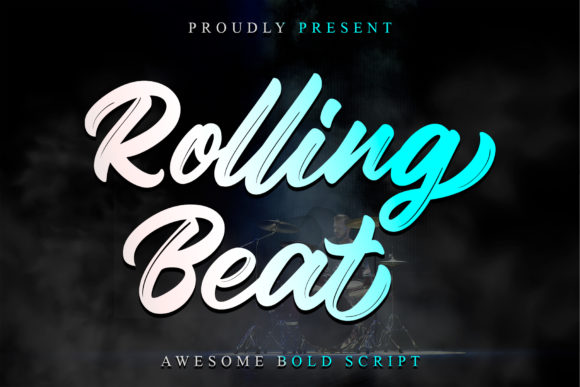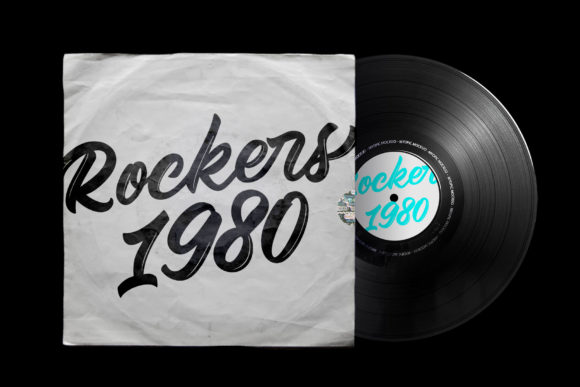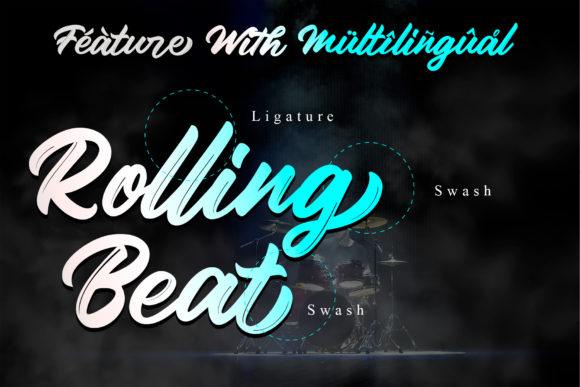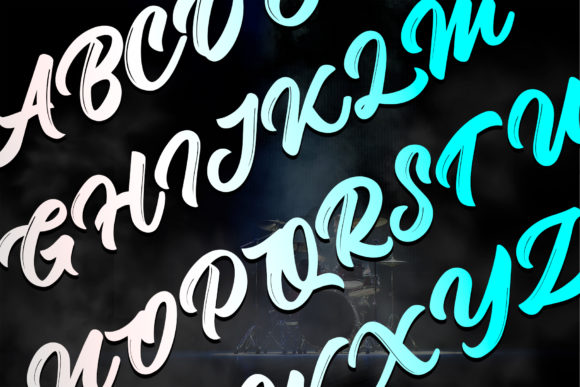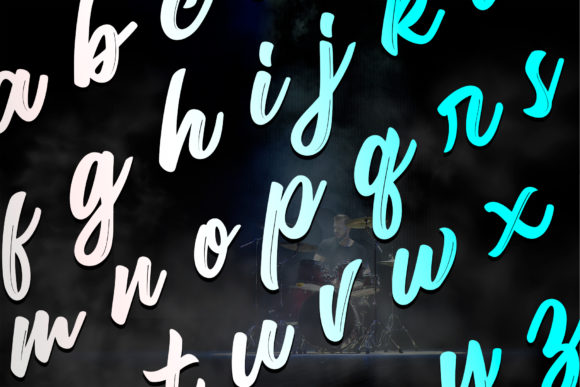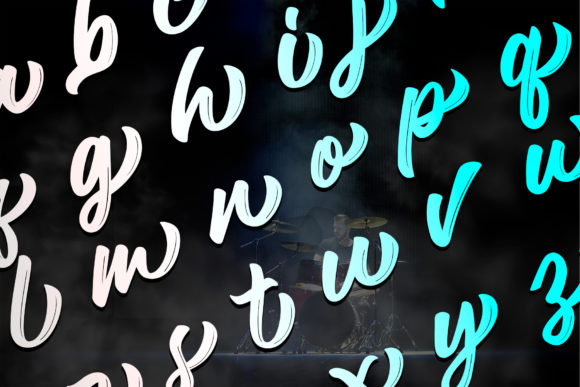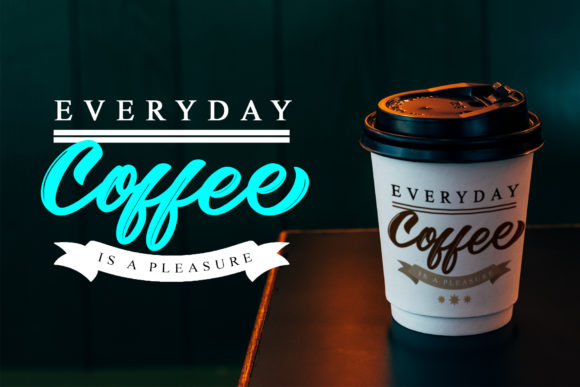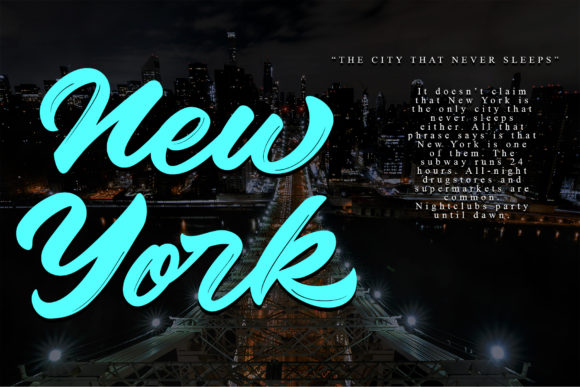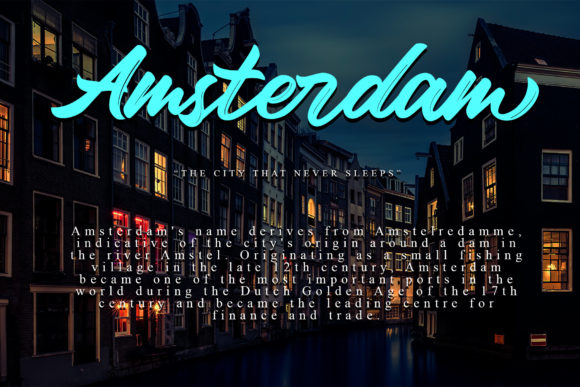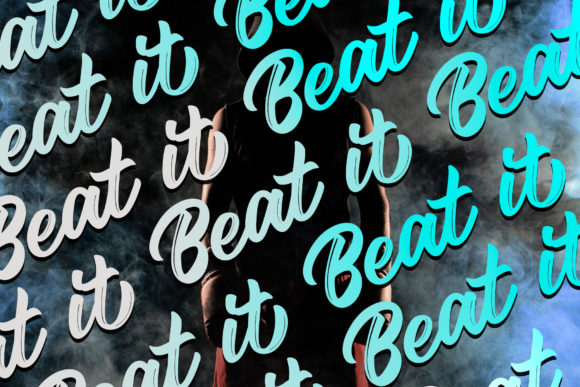
Rolling Beat Font
About Rolling Beat Font
Rolling Beat is a font that exudes flowing elegance, making it a perfect choice for a variety of design projects. Its elegant touch enhances your creations, adding a touch of handwritten allure that captivates the eye.
With its flowing nature, Rolling Beat brings a sense of grace and fluidity to your designs. Whether you’re working on invitations, branding materials, social media graphics, or any other project, this font elevates each creation with its effortless beauty.
Rolling Beat’s timeless style adds a touch of classic sophistication to your designs, making them stand out beautifully and ensuring their appeal remains evergreen.
Incorporating Rolling Beat into your designs allows you to create spectacular pieces. Its flowing handwritten essence serves as a canvas for your imagination, empowering you to craft visually striking and captivating designs.
The font’s elegance and distinctiveness make it an ideal choice for various design themes and styles. From modern and chic to elegant and vintage, Rolling Beat adapts seamlessly, making it a valuable asset for your creative endeavors.
In summary, Rolling Beat is more than just a font; it’s a flowing masterpiece that enhances your favorite projects. Embrace its beauty and fall in love with its timeless elegance. With Rolling Beat, your designs become true expressions of grace and allure that leave a lasting impact on all who encounter them. Let Rolling Beat be the font that elevates your creative journey, turning your projects into spectacular works of art that captivate and inspire.